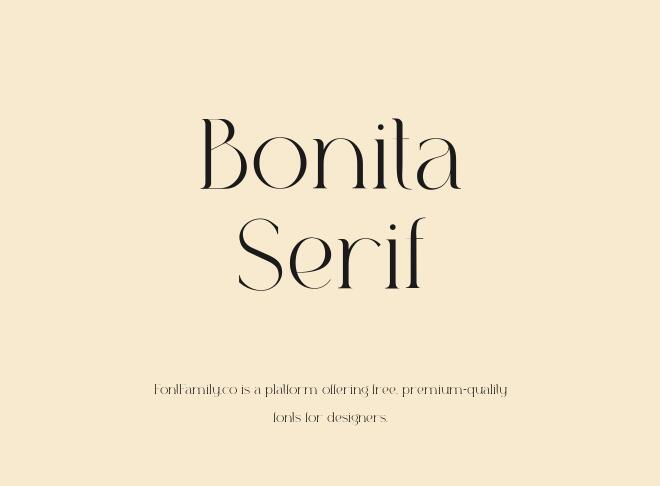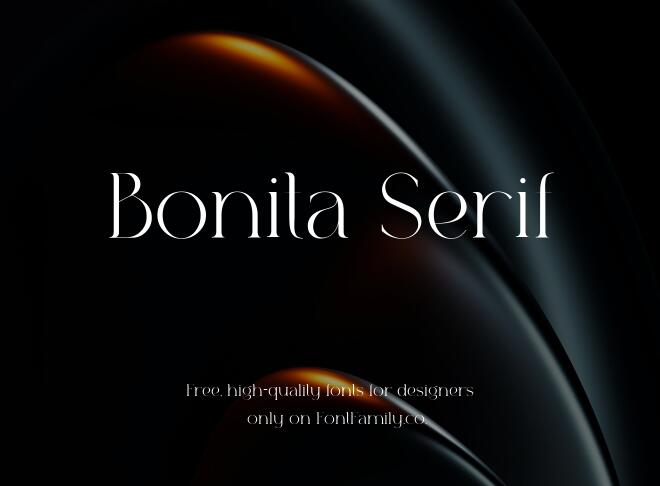
Bonita Serif Font
Bonita Serif Font is an exquisite typeface, meticulously designed by Foundry Co. With its classic and elegant style, this font adds a touch of sophistication to any design project. It's a Serif typeface with a slight twist, giving it a unique charm that sets it apart from traditional Serif fonts. Bonita Serif Font is perfectly suited for branding, editorial design, wedding invitations, and any project that requires a classical touch. Its elegant curves and refined letterforms make it a great alternative to more common Serif fonts like Times New Roman or Georgia. The Bonita Serif Font enhances readability and offers a timeless aesthetic, making it a great choice for both digital and print designs.